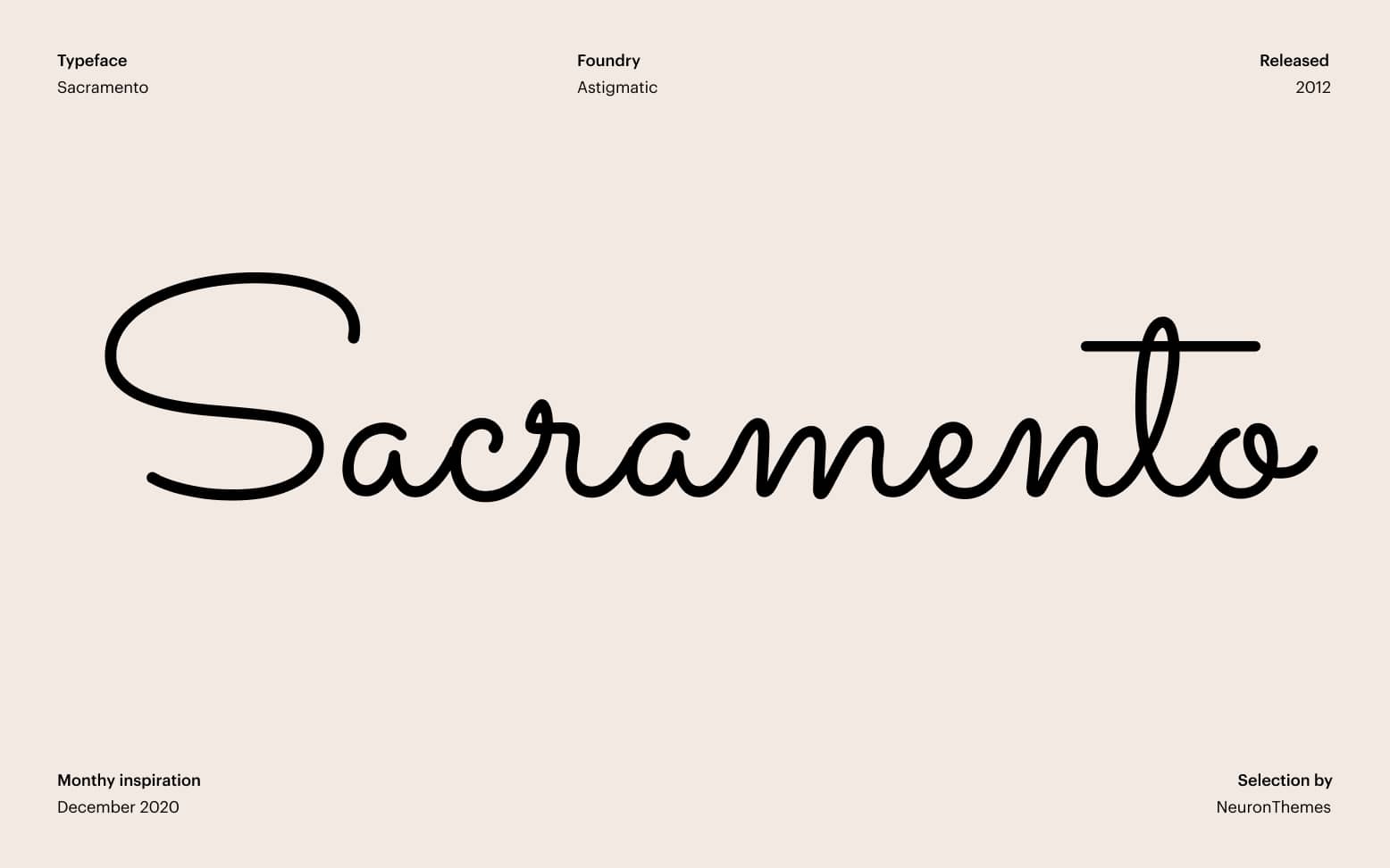
In the ever-developing world of technology, handwriting fonts are fairly used, but when incorporated correctly they can provide a different personal touch to your design or project like no other font can. As the name suggests handwriting fonts are type of typefaces that mimic the penmanship. They include elegant shapes and cursive yet swirly executions that provide a classy, fun or formal personality to your design, depending on the font you choose.
How to use handwriting fonts? The best handwritten fonts can be used either on your print marketing campaign or on your business cards, due to the personal relationship they bond and initiate an immediate connection between your audience and your business, which is the ultimate goal to any campaign.
Using a handwriting font will convey elegance and eccentricity to the audience you are aiming to appeal. You can use handwritten fonts on logos, social media campaign, printed materials, or direct mail, or signage to set your self apart from the competition. Lucky for you we have complied a list with the best free handwritten fonts that you can include on your projects.
The collection is comprehensive and filled with much elegance and classines, you can find here simple swirly handwriting fonts as well as calligraphy typefaces that extend the list into a different dimension. You can find simplicity, chicness and boldness throughout the entire article with the most beautiful free handwritten fonts we've complied.
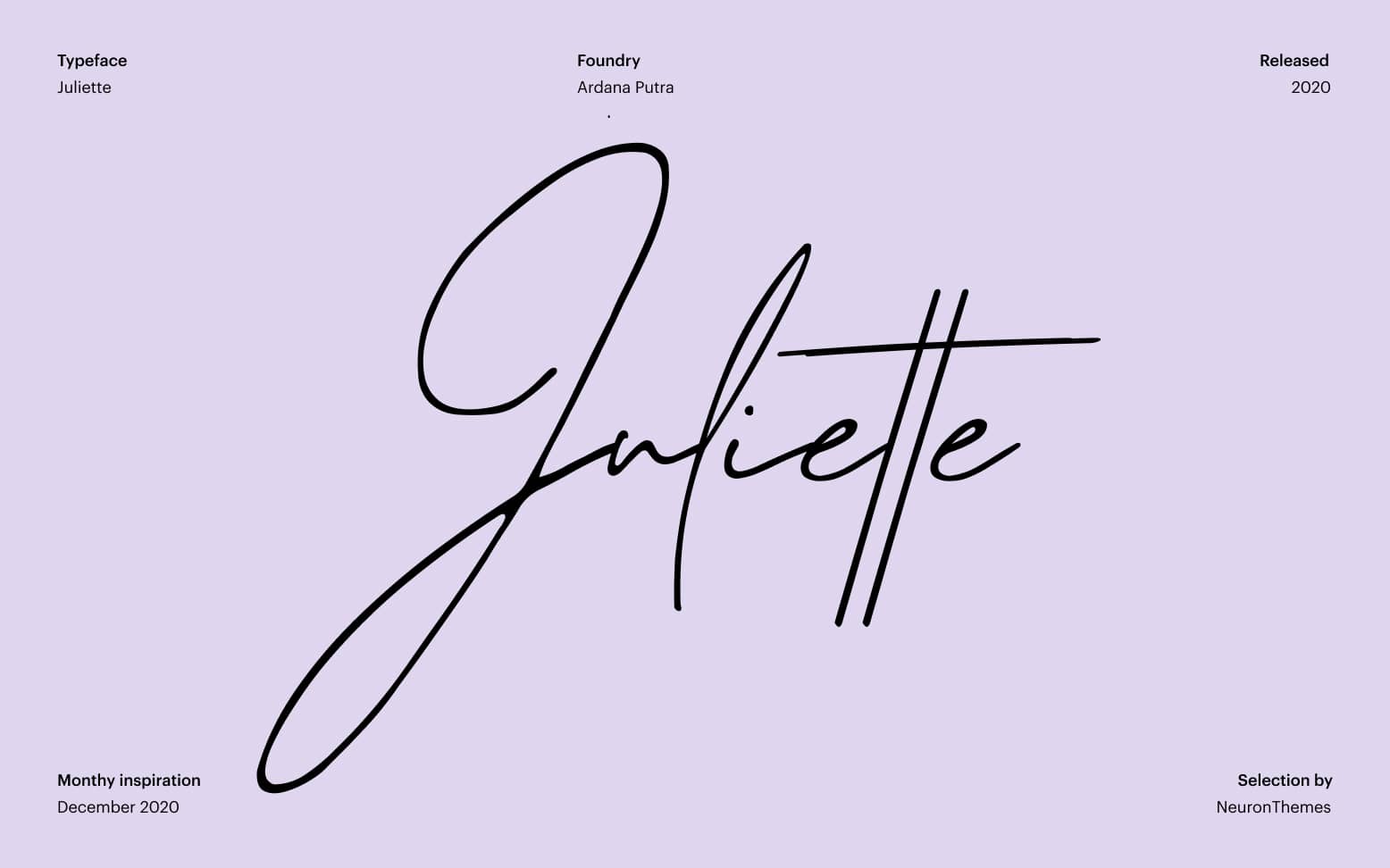
We will start the list with the beautiful and charming font of Juliette, this stunning handwritten font is available for free and can be used beautifully on business cards or emails to finish it up with a dedicated signature that's deemed to evoke emotion and character. The font is free to download for personal use only, if you wish to use Juliette for commercial projects, you would need to purchase the font.
Another signature-like handwriting font that's perfect for usage in branding, product packaging, magazines, social media or even weddings. The beautifully swirled extensives provide the classy touch of Morning Glow thus resulting in mere elegance of the typeface. This beautiful free handwritten font is issued under the Free for Personal Use license, thus if you need to use the typeface on commercial projects you would need to purchase it.
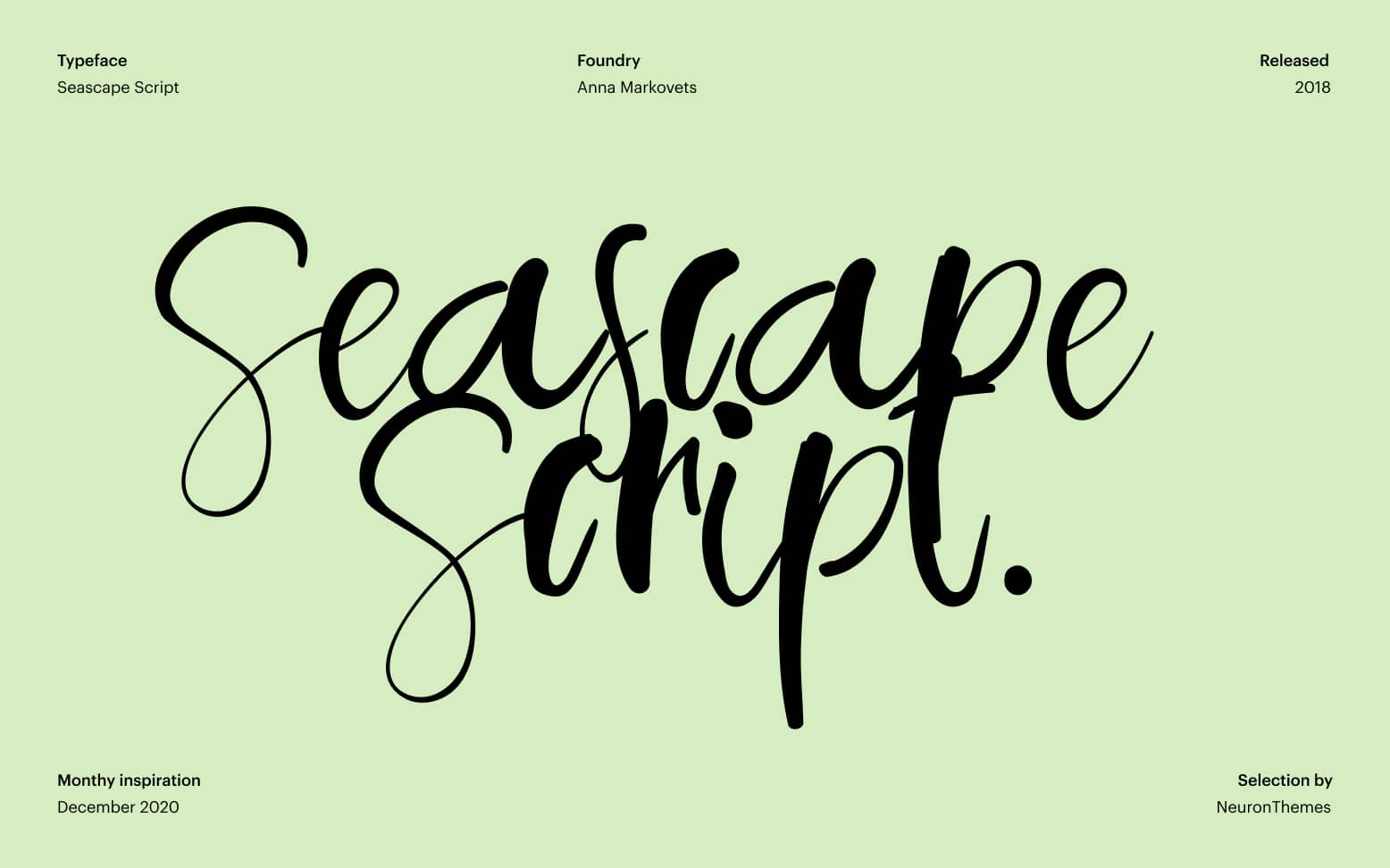
Next on the list we have the charming font of Seascape Script that includes extended ligatures as well as lowercase alternatives, making it fairly common for handwritten fonts that resembles the penmanship typefaces. Seascape Script is a free handwriting font that can be embedded on wedding invitations, cards, headings, quotes, product packaging and more. You can download this beautiful handwriting font for free and se it on your personal projects only.
Here we are presenting Dancing Script, a very entertaining handwriting script font that includes playful capital letter which might go a little over the baseline and a harmonious connection between the characters thus providing a formal yet friendly look to your project. The Seascape Script is a beautiful free handwriting font that's issued under the Open Font License, meaning you can use the font for free on all your personal or commercial projects.
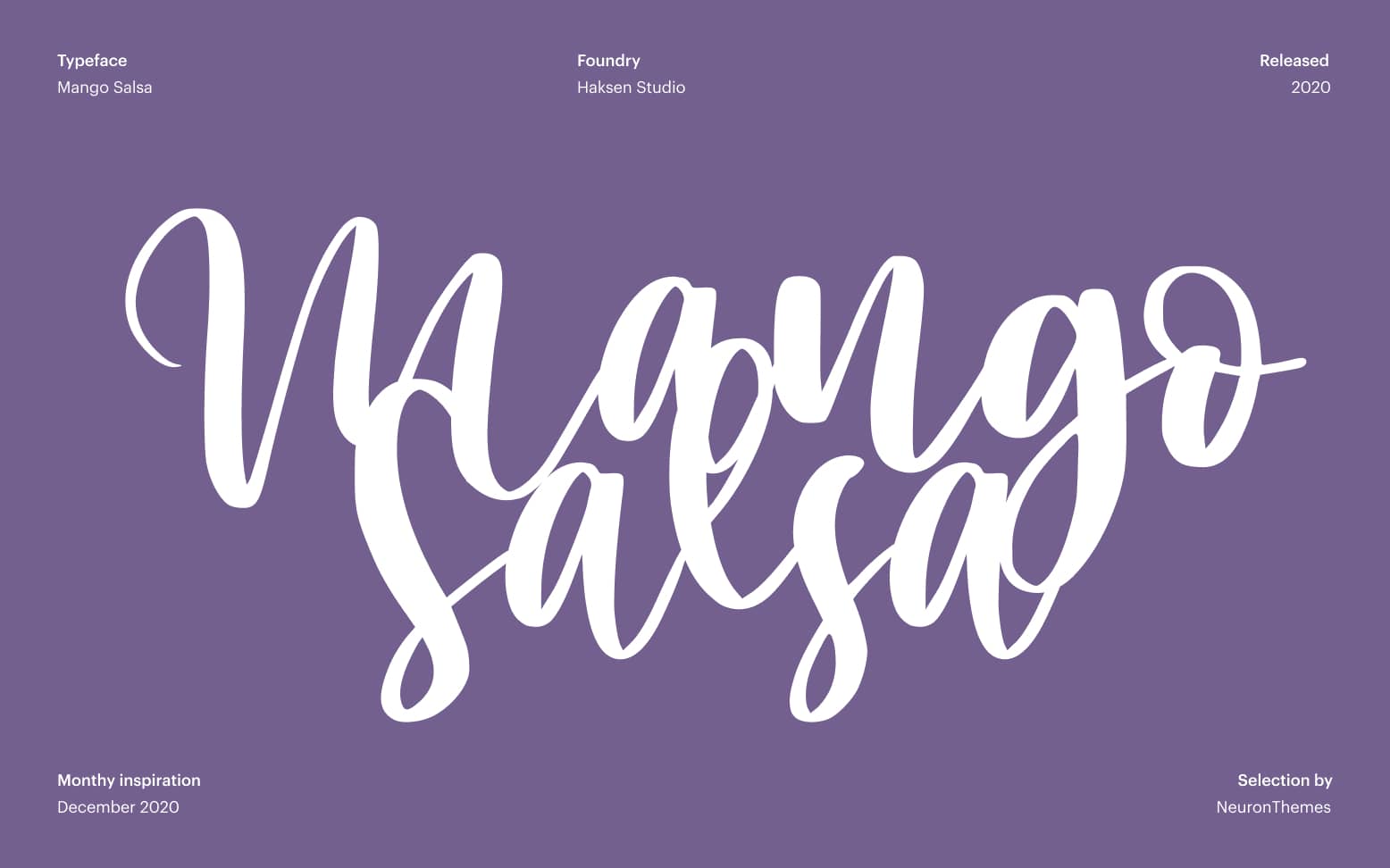
Mango Salsa is a modern free handwriting font that includes cute and pretty alternatives in lowercase and a fairly bold quirky capital letter to provide the lively and free-spirited character to your projects. Mango Salsa will be the perfect for for branding, product packaging, cards, and more. You can download Mango Salsa for free but for personal us only. You would need to purchase a license for commercial use of this handwritten font.
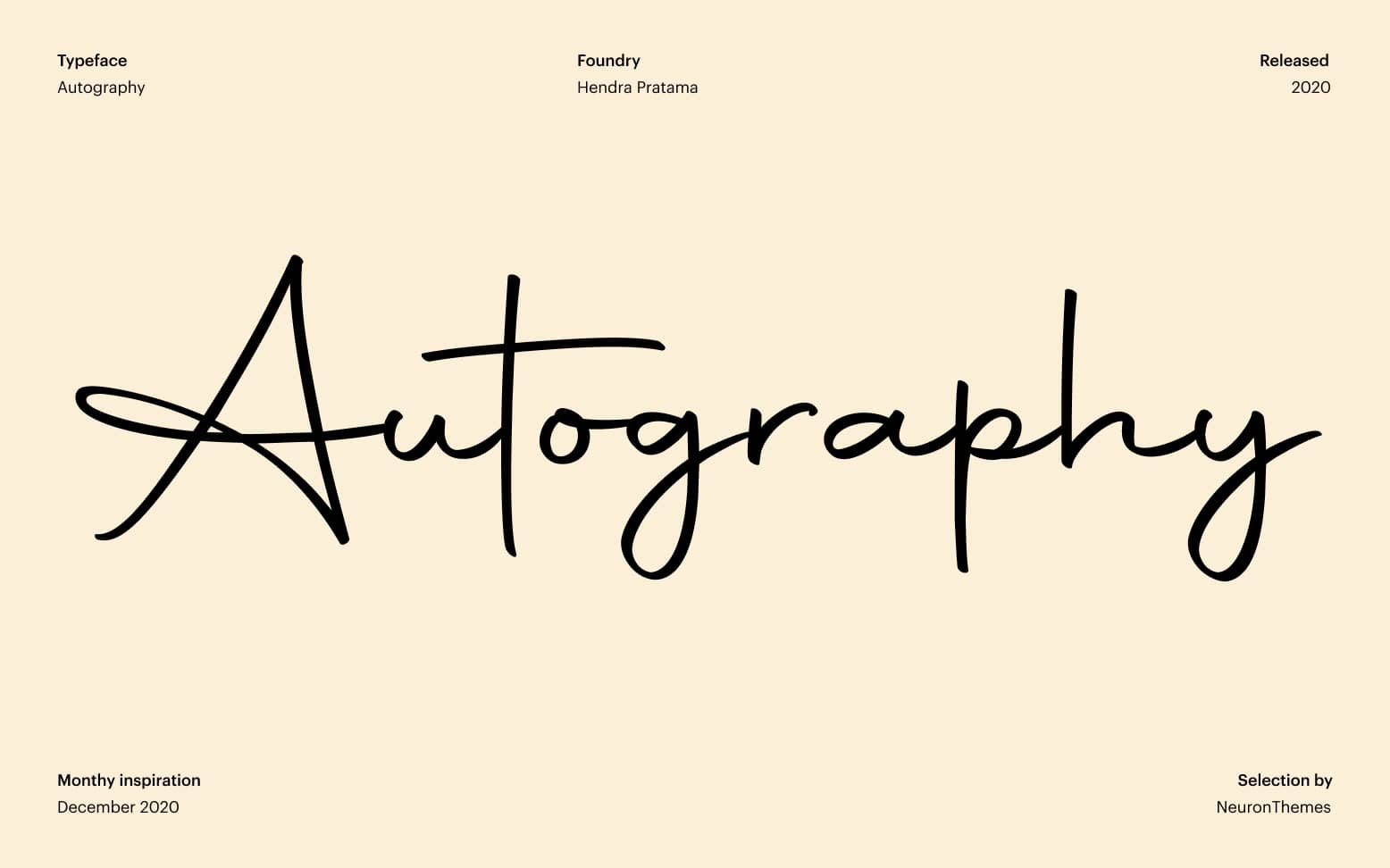
Autography has everything a web designer would want, beautiful smooth shapes, and presents an equitable calligraphy style that's impartial for signature handwriting fonts. Autography is a modern and beautiful free handwritten font that's widely used in magazines, book covers, movie titles, or quotes. Use this typeface to create logotypes, autographs, or digital signatures. Note that the free version of Autograph is available only for personal use.
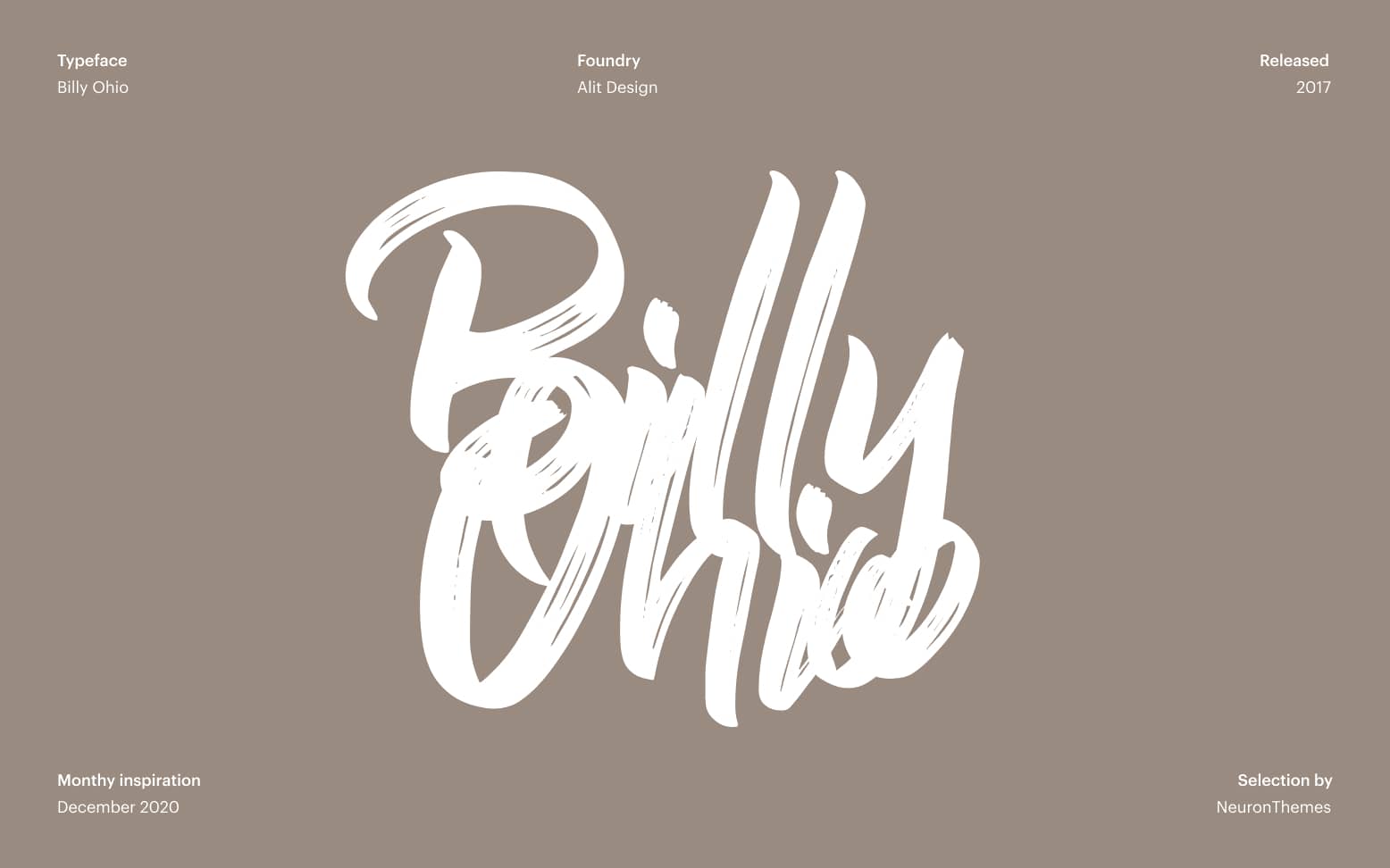
Our collection comprises of multiple styles and versions of handwriting fonts in order to provide solution for a variety of usage of these typefaces. Billy Ohio is a distinct dry brush type of font that's perfectly suited logotypes, header websites, product designs and more. The style of Billy Ohio alternates between fun, sporty and bold. If these are the main characteristics of your project, then this stunning free handwriting font is the right choice for you. Billy Ohio is available for free for personal use only.
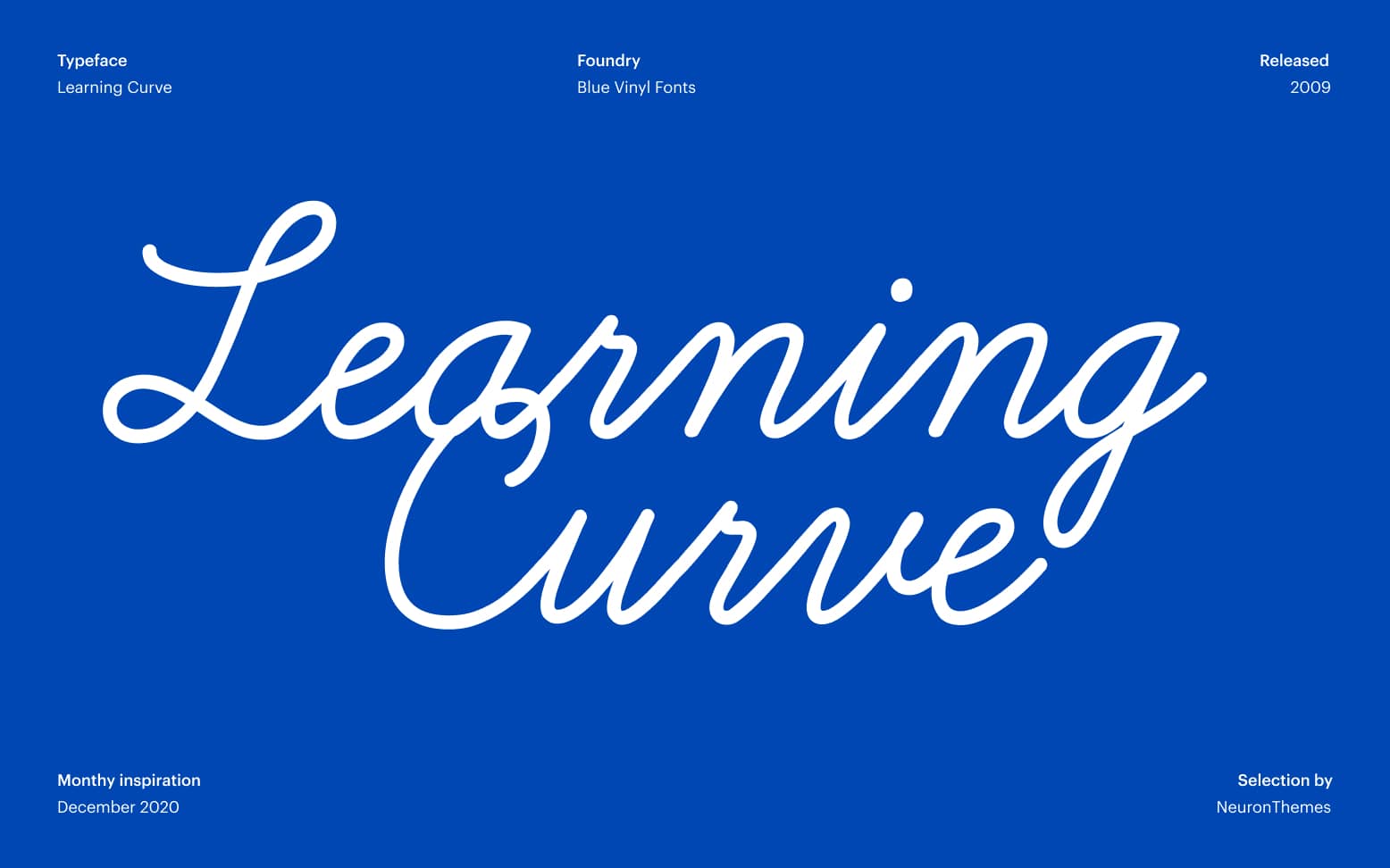
This collection includes signature-like typefaces as well as calligraphy appeal fonts that look as playful as they cool fancy and classy. And if you are looking for a typeface that resembles the actual type writing, make sure to check fonts like Mango Salsa, Autography, or Architect's Daughter. Handwriting fonts are meant to convey a strong bond and emotional expression between your designs and your audience, thus resulting in a personal relationship that results in success and fulfilling the business's goals.